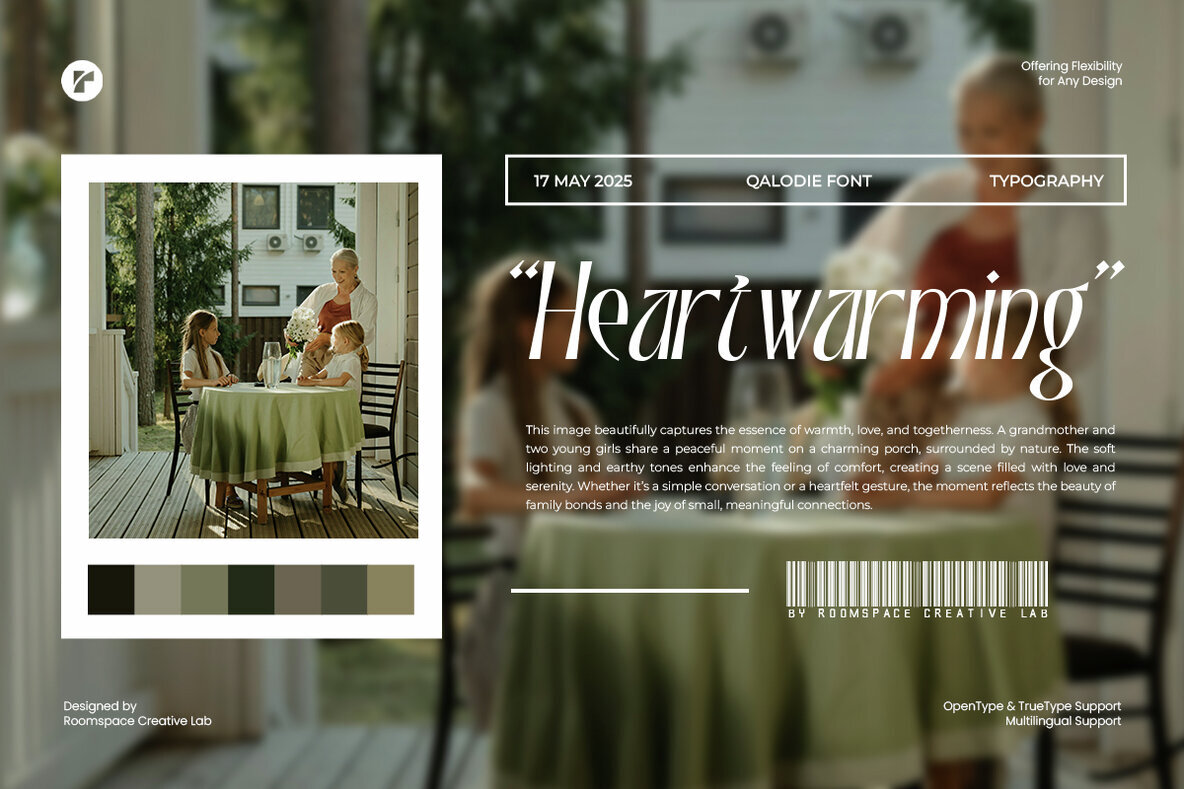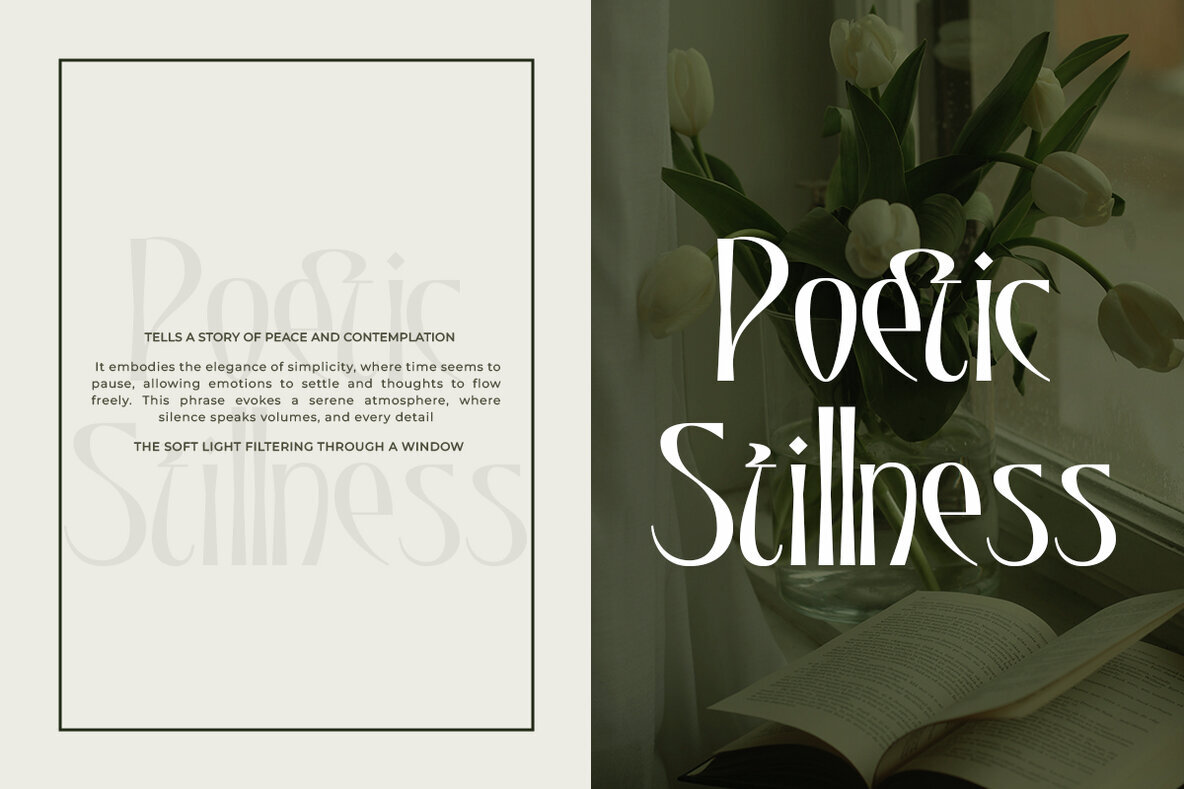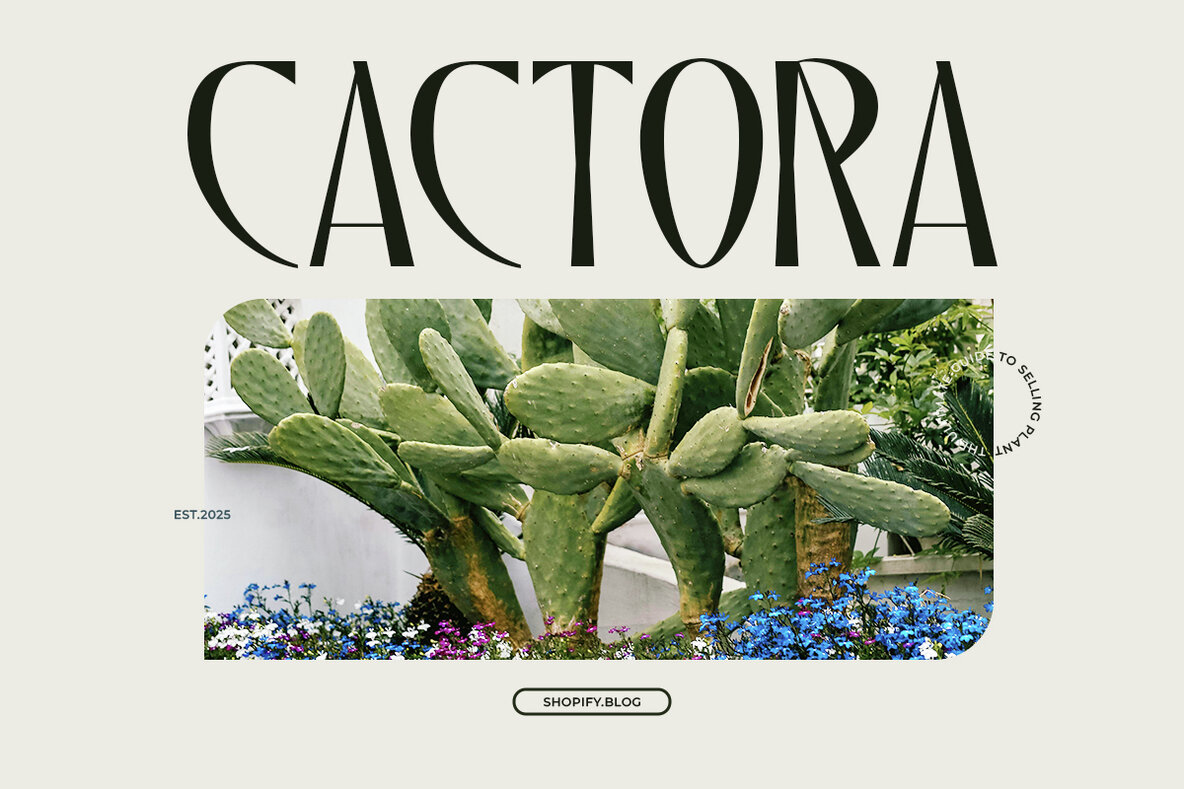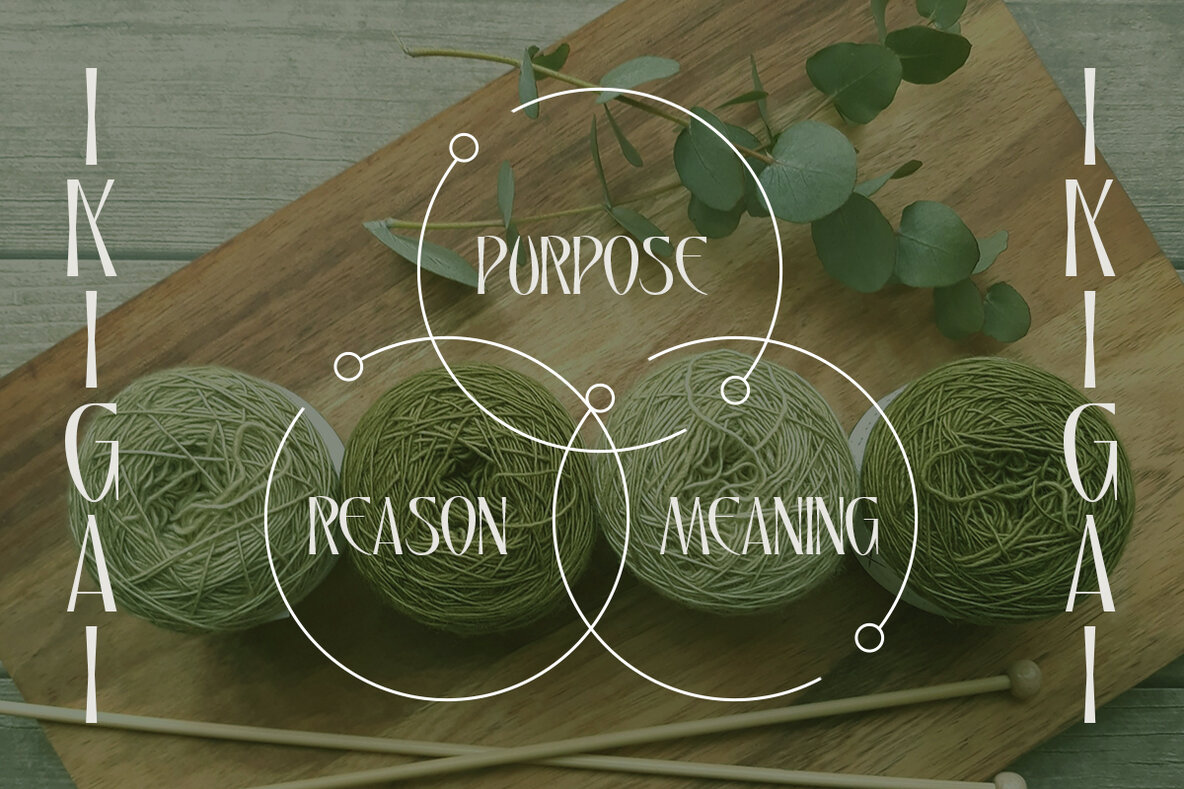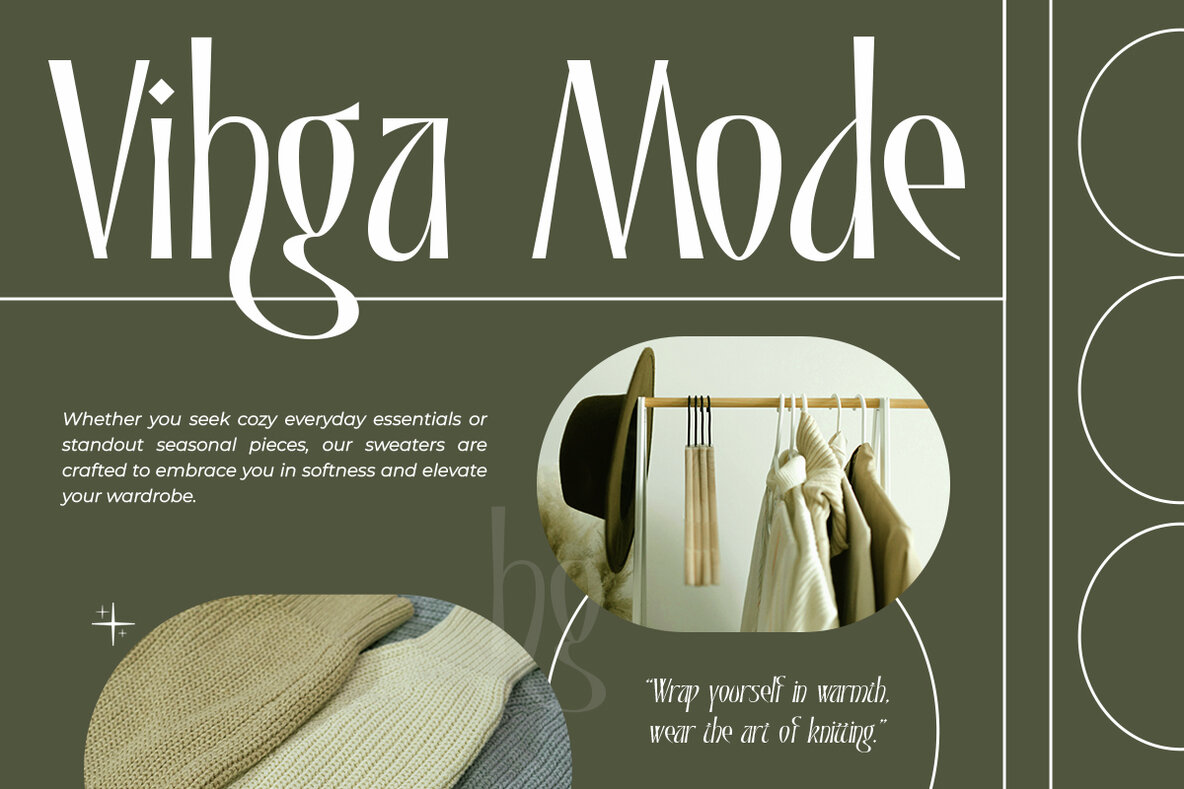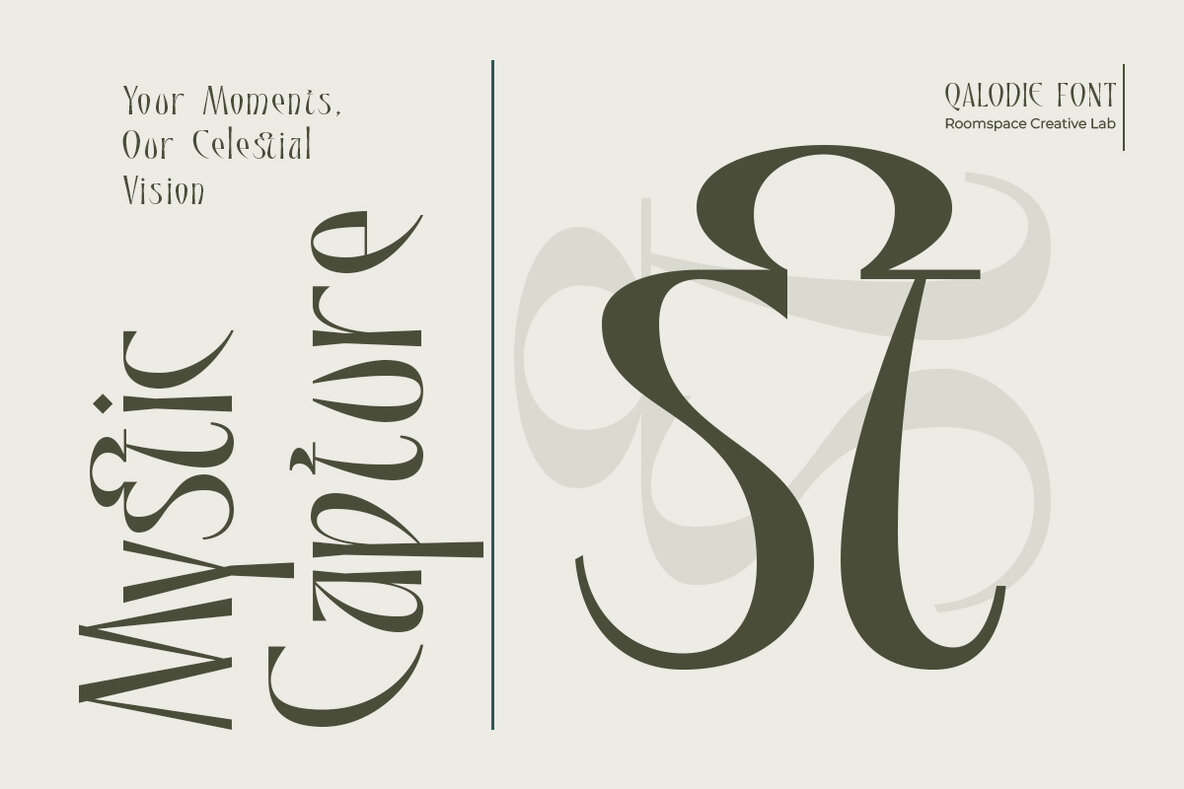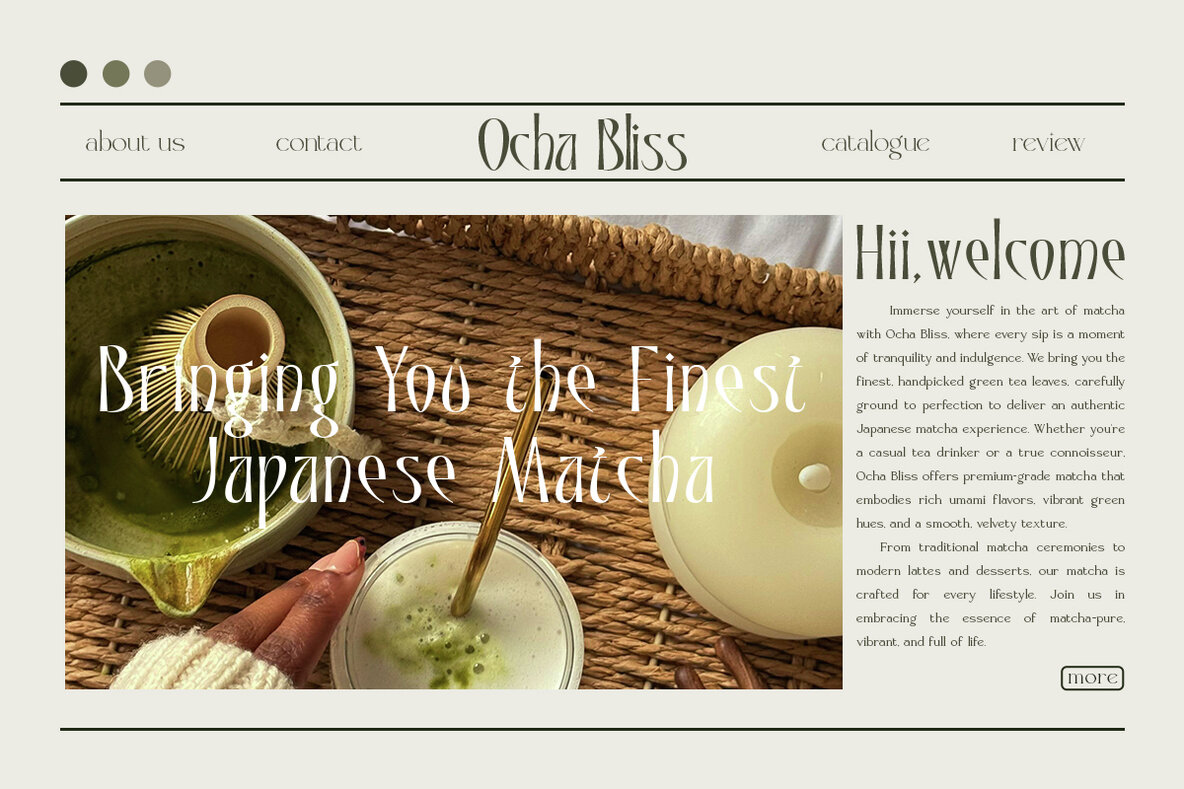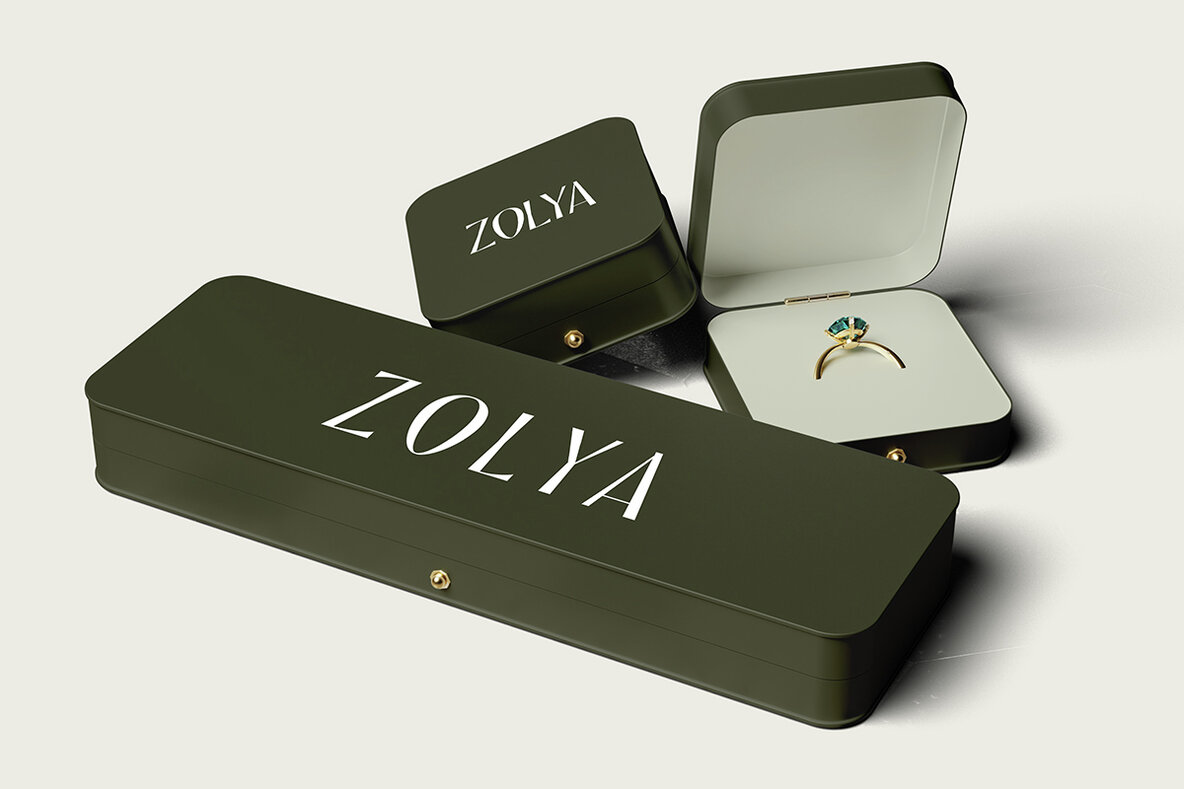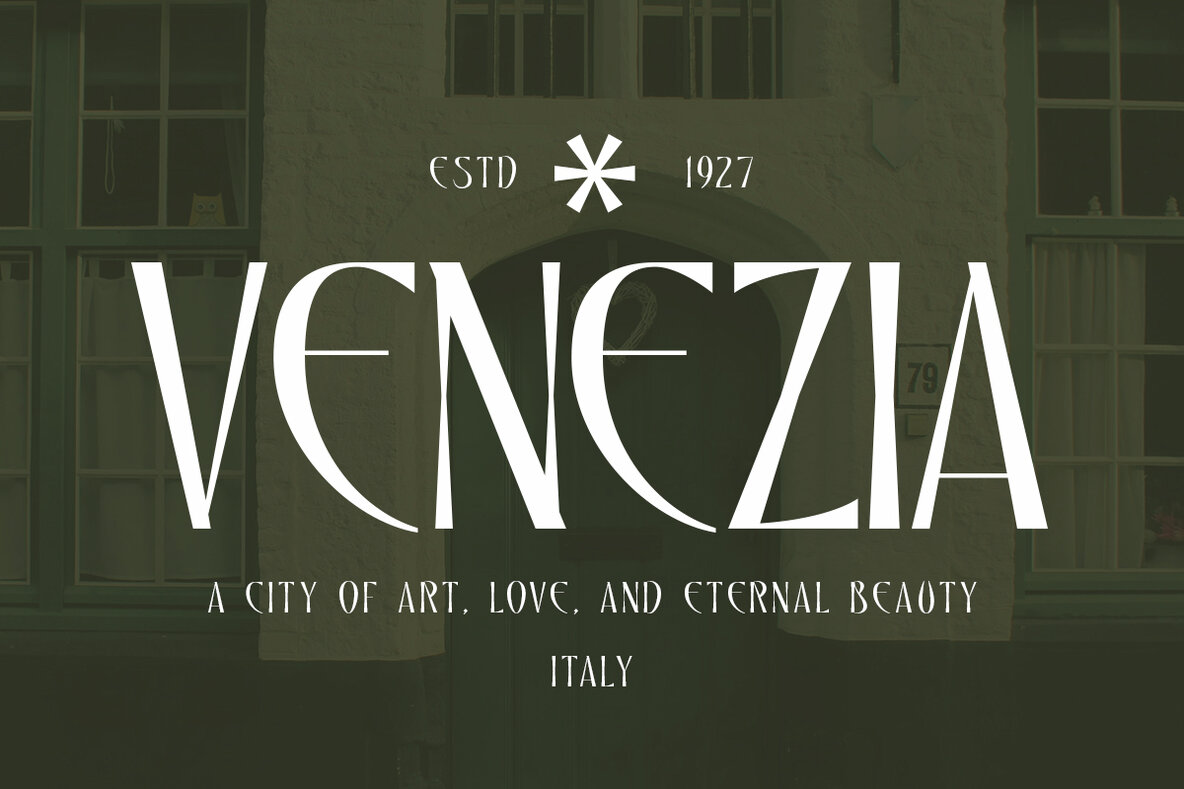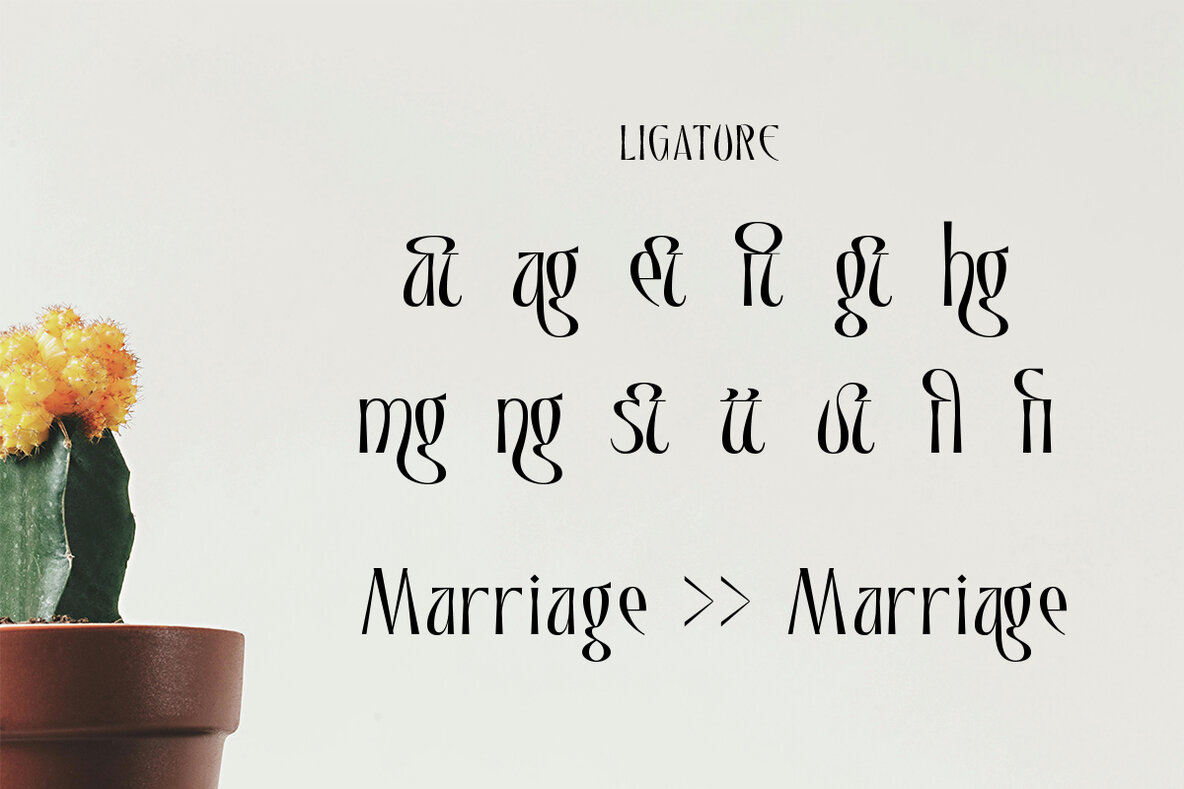
Qalodie Font
Qalodie, a sophisticated serif font that blends modern elegance with a touch of Art Deco flair. Designed for those who appreciate refined typography, Qalodie is perfect for fashion branding, editorial designs, luxury packaging, and high-end creative projects.
With its graceful letterforms, sleek curves, and unique character details, Qalodie brings a sense of sophistication to any design. Whether you're crafting a timeless logo, a stylish magazine layout, or an upscale branding concept, this font offers the flexibility and beauty to elevate your work effortlessly.